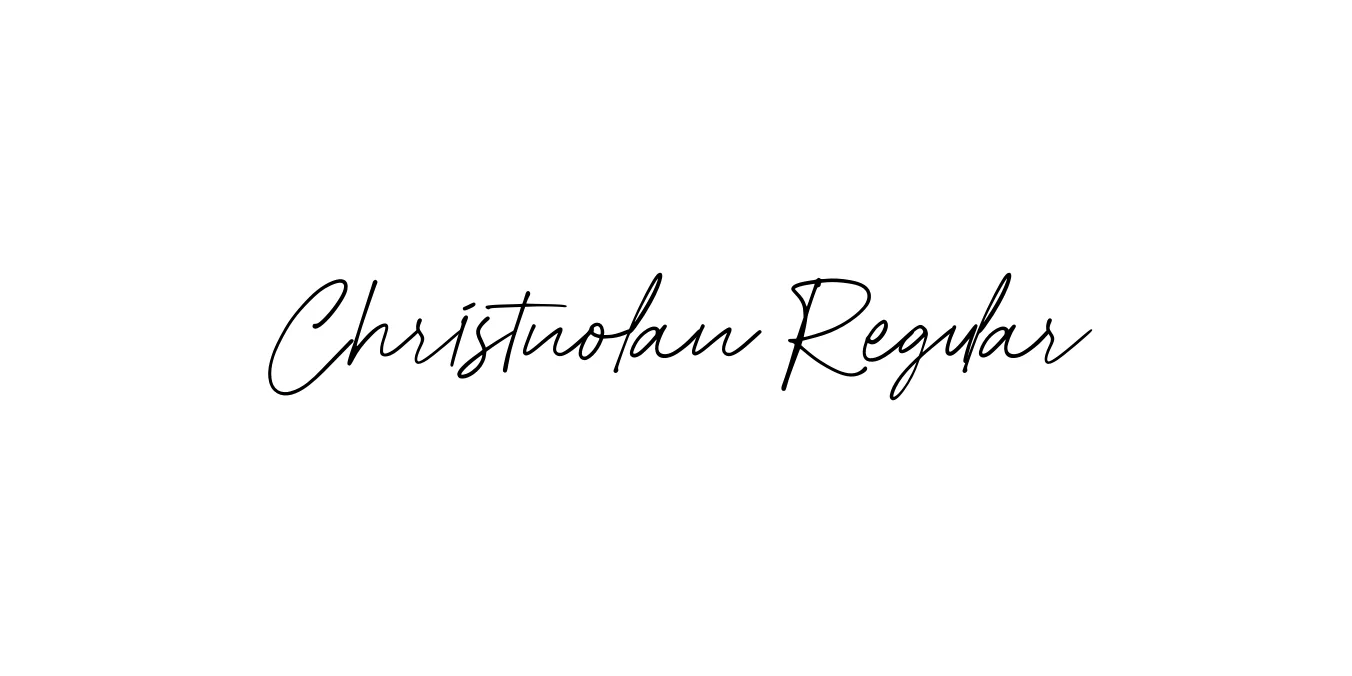
Christnolan Regular
Designed by Ef Studio - Edi Guntur
Christnolan Regular is a sophisticated and elegant signature script font designed by Edi Guntur of Ef Studio. Characterized by its fluid, natural handwriting style, this typeface captures the essence of high-end calligraphy with a modern twist. Each letter is crafted with smooth, rhythmic strokes that provide a bespoke aesthetic, making it an excellent choice for projects that require a personal touch and a sense of luxury.
Since its release, Christnolan has gained popularity among designers for its versatile application in digital and print media. It is particularly well-suited for wedding invitations, premium packaging, and sophisticated branding identities. The font's organic flow and stylish ligatures ensure that it remains a timeless asset for creating aesthetic social media graphics and professional stationery that stands out from the crowd.
Christnolan Regular Best Uses
Perfect for elegant invitations, save-the-date cards, and place settings.
Ideal for creating sophisticated logos and high-end brand identities.
Excellent for aesthetic quotes, Instagram stories, and Pinterest graphics.
Great for professional photography watermarks and digital signatures.
Christnolan Regular Glyphs